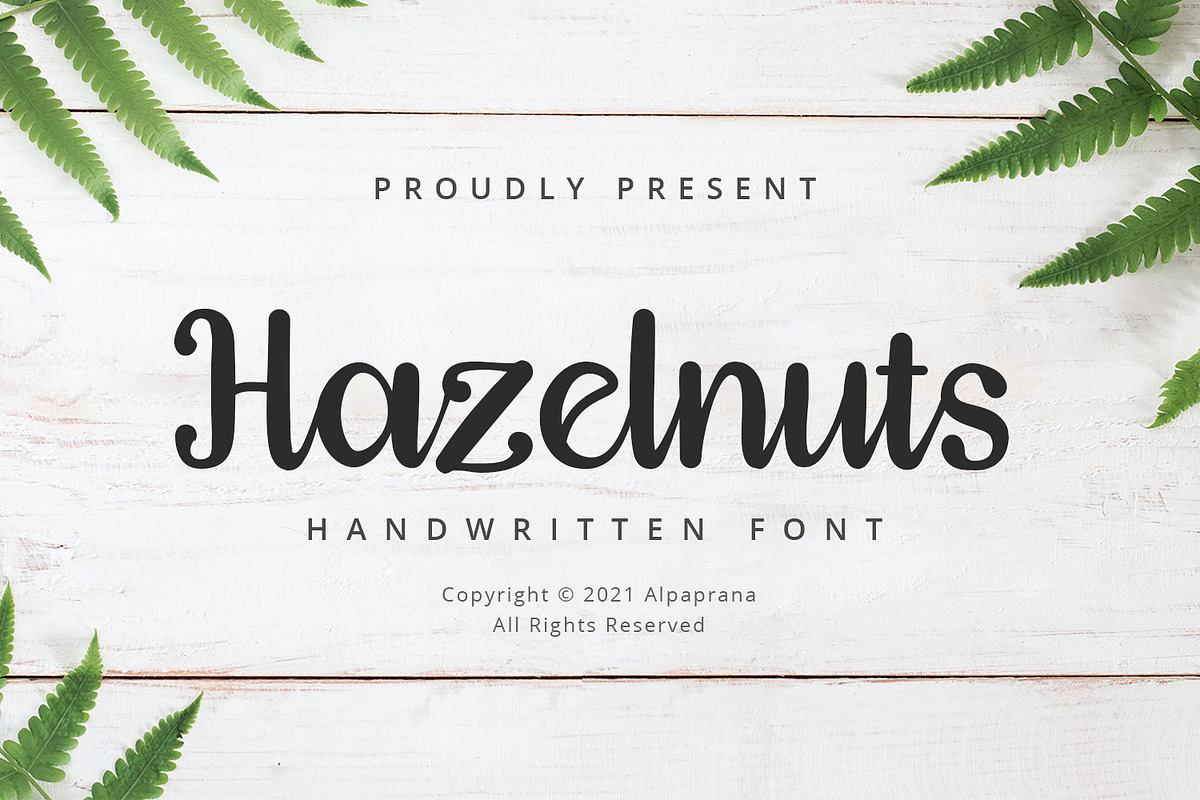
Hazelnuts – Handwritten Font Free Download is a warm and charming typeface that captures the cozy feel of natural handwriting. With its smooth curves, casual flow, and inviting personality, this font is perfect for greeting cards, recipe books, product packaging, personal branding, and lifestyle blog graphics.
Its handwritten style adds a touch of authenticity and friendliness to any project. Whether you're designing labels for homemade goods or creating heartfelt quotes for social media, Hazelnuts brings a wholesome, handmade vibe that feels genuine and comforting.
Designers love Hazelnuts for its balance of readability and personality across both digital and print formats. Want to add a sweet, handwritten touch to your work? Download Hazelnuts – Handwritten Font Free Download and let your designs feel naturally delightful.